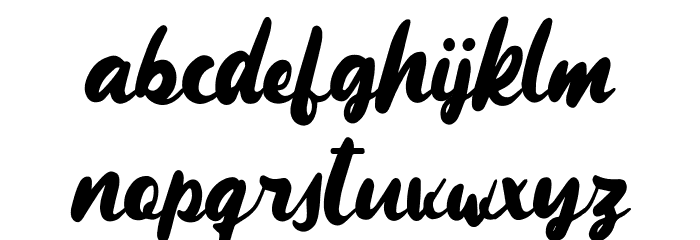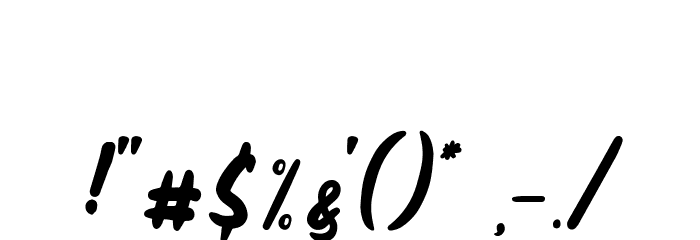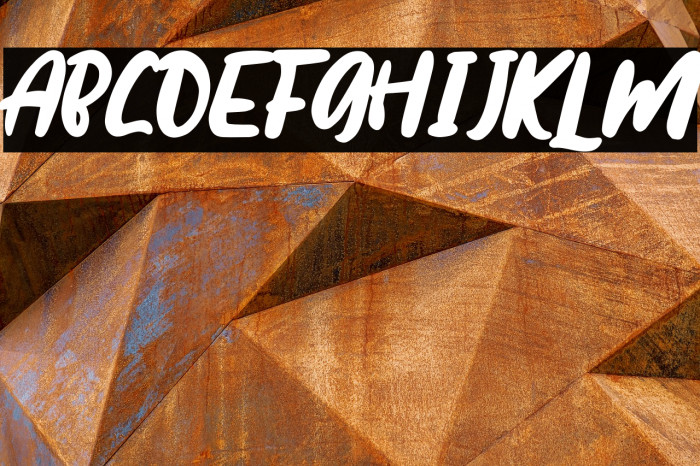
Maqueen Font
This font features a bold and dynamic script style, characterized by its fluid and connected letterforms. The uppercase letters exhibit a strong presence with their thick strokes and slightly slanted orientation, giving a sense of movement and energy. The lowercase letters maintain a cohesive flow, with smooth curves and a consistent baseline. The numerals and special characters are designed to complement the overall style, maintaining the bold and expressive nature of the font. This typeface is well-suited for projects that require a touch of personality and flair, such as branding, advertising, and creative design work.
A bold, dynamic script font with fluid, connected letterforms.
- Proposed Projects: Ideal for branding, advertising, and creative design projects.
- Use Case: Logos, Headlines, Creative design